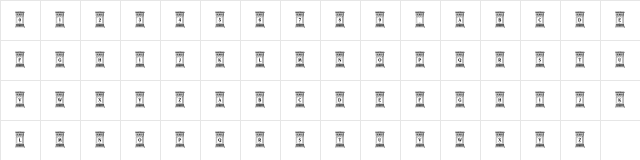
Complete Unnamed Caps Two Regular glyph index. Displaying only characters natively supported by Unnamed Caps Two Regular font.
Unnamed Caps Two is a composed and adaptable typeface that performs quietly and consistently across a wide range of design contexts.
Who designed the Unnamed Caps Two Regular font?